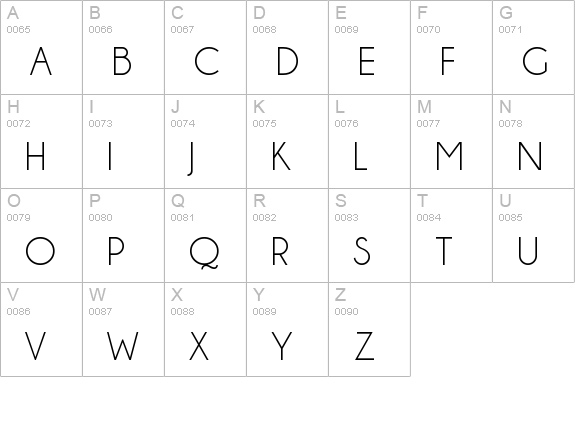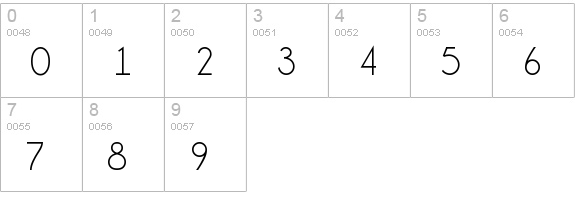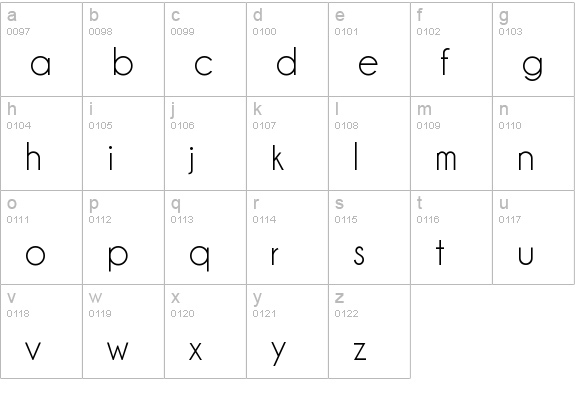
Champagne & Limousines font is a stunning typeface that exudes elegance and sophistication. Its sleek and modern design makes it perfect for a wide range of projects, from luxurious branding to high-end editorial layouts. With its clean lines and balanced letterforms, Champagne & Limousines font adds a touch of refinement to any design. The tall and slender characters create a sense of grace and poise, while the subtle curves add a hint of playfulness. What sets Champagne & Limousines font apart is not just its impeccable aesthetics, but also the fact that it is available for free. That's right, this premium font can be freely downloaded at FontsMarket.com, making it accessible to designers and enthusiasts alike. Whether you're working on a wedding invitation, a fashion magazine, or a prestigious brand identity, Champagne & Limousines font will elevate your design to new heights. Its versatility allows it to shine in both bold headlines and delicate body text, ensuring that every detail of your project is infused with sophistication. So why wait? Experience the beauty and elegance of Champagne & Limousines font today by downloading it for free at FontsMarket.com. Let this exquisite typeface bring a touch of luxury to your next design endeavor.